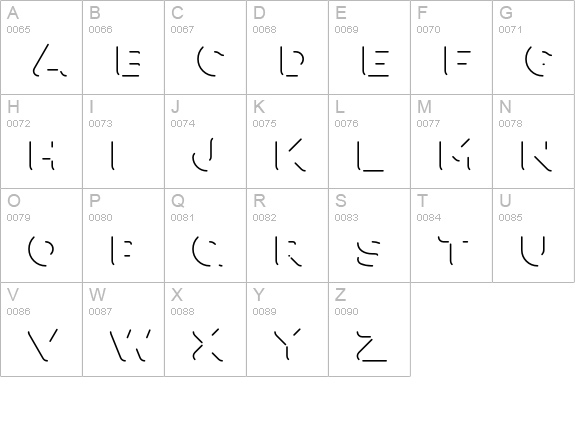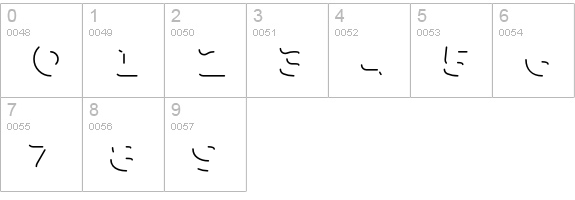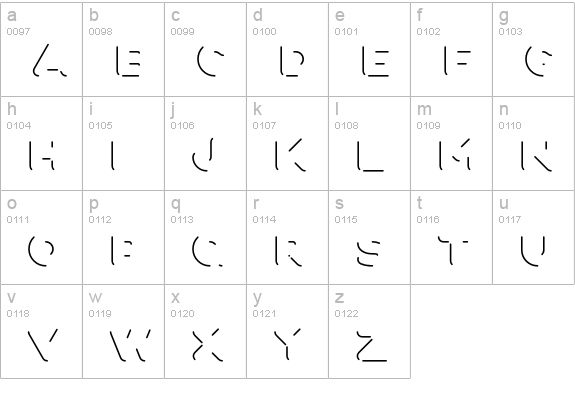
Fun City Level 5 Reflection Font Details
Below you can preview Fun City Level 5 Reflection in uppercase [A-Z], lowercase [a-z] and numbers [0-9]. You can also read the author's notes and license information before downloading.
Fun City Level 5 Reflection uppercase A-Z preview Fun City Level 5 Reflection lowercase a-z preview Fun City Level 5 Reflection numbers 0-9 preview
Fun City Level 5 Reflection font is a vibrant and playful typeface that exudes energy and creativity. With its unique design and dynamic style, this font is perfect for adding a touch of fun to your projects. The playful curves and reflections of the letters give a sense of movement and excitement, making it ideal for use in designs that aim to capture attention and convey a sense of joy. What sets Fun City Level 5 Reflection font apart is that it is available for free download at FontsMarket.com. This means that you can easily access this eye-catching font without any cost, making it a great choice for designers looking to add a fun and energetic element to their work without breaking the bank. Whether you're creating posters, invitations, logos, or any other design project, Fun City Level 5 Reflection font is sure to bring a sense of fun and excitement to your work. Download it today and let your creativity shine with this lively and dynamic typeface.